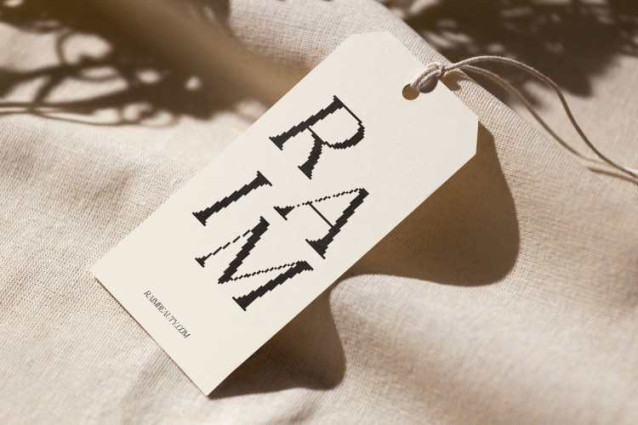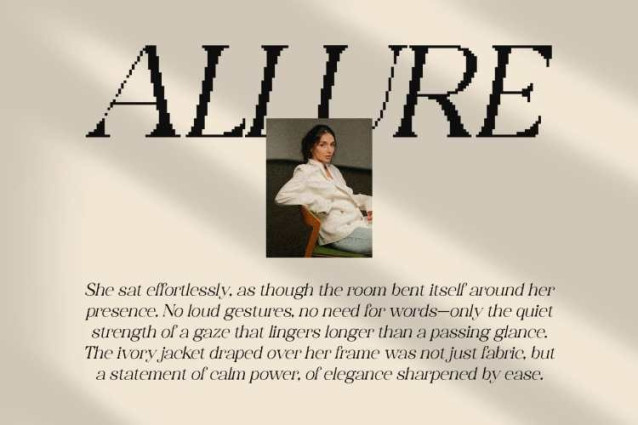
Harnold Pixel brings back the excitement of vintage gaming with its pixel-styled letterforms. Inspired by the charm of classic arcade screens, this serif display font delivers retro flair that instantly sparks nostalgia.
Handmade Depth and Texture
Unlike purely digital pixel fonts, carries a handmade finish that adds depth and authenticity. Each character feels tactile, as if crafted pixel by pixel, giving the font a unique personality that bridges digital aesthetics with handcrafted artistry.
Playful and Retro in Style
With its blocky yet structured serif design, Harnold Pixel balances playfulness with readability. Its retro charm makes it stand out in designs that want to feel both fun and memorable, while its serif details add a touch of uniqueness to the pixel tradition.
Perfect for Games and Creative Branding
Whether used for game titles, playful posters, or nostalgic branding, thrives in projects that celebrate creativity and retro energy. It’s bold, vibrant, and versatile making it an excellent choice for designers looking to blend gaming nostalgia with modern expression.